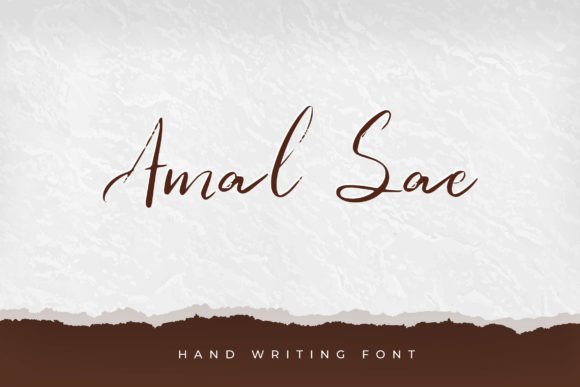
The Designer’s Delight: Amal Sae Font
I still remember the time I was working on a project for a client who wanted a elegant and sophisticated look. I had spent hours browsing through font libraries, but nothing seemed quite right. That was when I stumbled upon the Amal Sae font. It was love at first sight! ✨ This dazzling script font has been a game-changer for my design workflow, and I’m excited to share my experience with you.
• ✨ Exquisite craftsmanship: The Amal Sae font is meticulously designed, with intricate details that make it stand out.
• ✅ Versatility: Whether you’re working on a wedding invitation, a branding project, or a social media graphic, this font adapts seamlessly.
• 💫 Highly legible: Despite its ornate nature, the Amal Sae font remains easy to read, making it perfect for body text or headlines.
While the Amal Sae font is exceptional, there are a few things to keep in mind: 🤔
• ⚠️ Limited use in small sizes: Due to its intricate details, the font may not be suitable for very small text sizes or low-resolution images.
• ⚠️ Occasional kerning issues: As with any script font, you may need to adjust kerning manually to achieve optimal results.
The Amal Sae font was crafted with inspiration from traditional calligraphy and hand-lettering techniques. Its creator aimed to create a font that would evoke the feeling of elegance and sophistication, while still being approachable and versatile.
Font Name Amal Sae Font
Author Mightyfire
Q: What type of projects is Amal Sae suitable for?
A: Amal Sae is a versatile font suitable for a wide range of projects, including weddings, branding, social media graphics, and more.
Q: Is Amal Sae a difficult font to read?
A: Despite its ornate nature, Amal Sae is highly legible, making it suitable for body text or headlines.